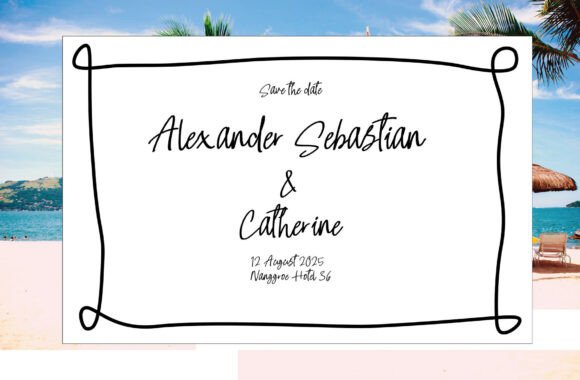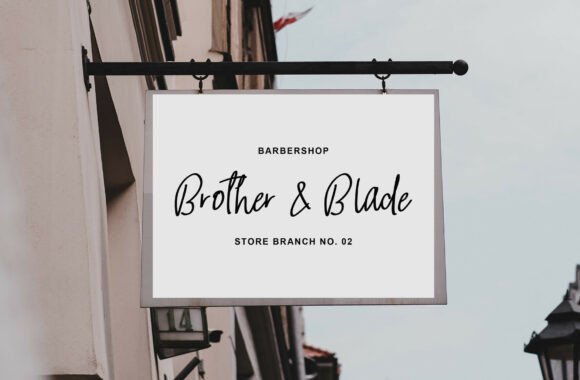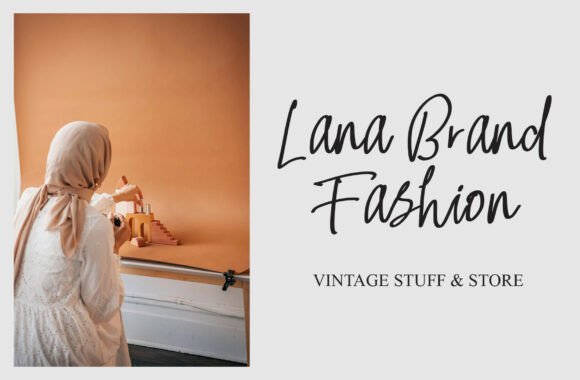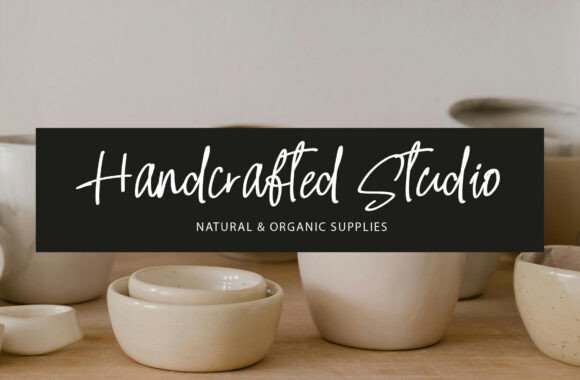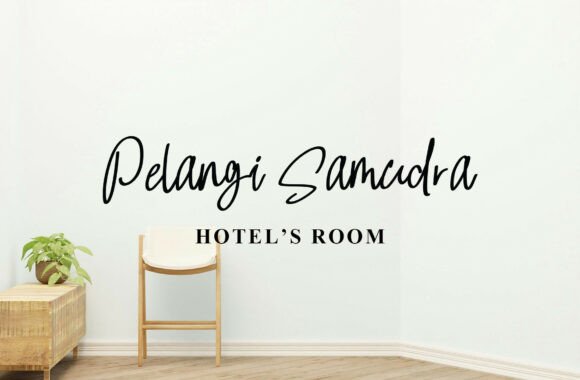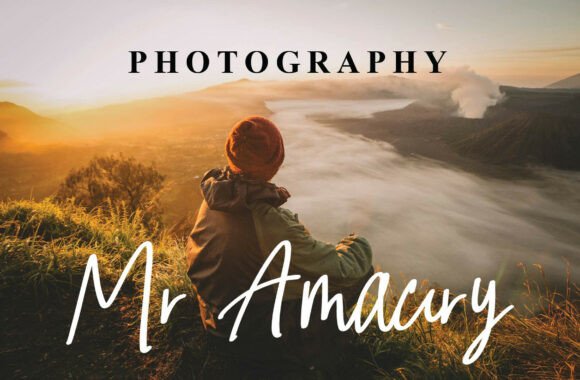
Introduction to Midnight Brush Font
Remember that magical moment when you stumbled upon the perfect font for your creative project? The one that took your design from good to great, and left you wondering how you ever managed without it? For designers, that moment is what makes all the late nights and early mornings worth it. And for those who crave a font that exudes natural elegance and personality, the Midnight Brush Font is the ultimate game-changer.
This beautifully designed handwriting typeface is a treasure trove of creative possibilities, making it an ideal choice for everything from wedding invitations to logos, branding projects, and social media posts. With its natural strokes, delicate imperfections, and subtle charm, the Midnight Brush Font effortlessly blends high-quality design with a touch of whimsy, making it a valuable resource for designers who demand the best.
Whether you’re working on a free download or a paid project, the Midnight Brush Font is a must-have design resource that will elevate your work to new heights. With its transparent background and PUA-encoded glyphs, you’ll have effortless access to all the swashes, alternate characters, and stylish extras that will make your designs truly shine.
Key Features of Midnight Brush Font
- Unique, hand-painted style with a transparent background, ideal for use in graphic design, illustrations, and digital art.
- Perfect for designers and artists looking for a distinctive, high-quality design resource to elevate their creative projects.
- Midnight Brush Font is a versatile font that can be used in a variety of contexts, from branding and advertising to editorial and publishing.
- Its unique, brush-like texture adds a touch of organic, hand-crafted charm to any design, making it a standout choice for designers seeking a creative edge.
Honest Review: Midnight Brush Font
I recently had the chance to work with the Midnight Brush Font, and I must say it’s a high-quality addition to any designer’s toolkit. As a free download, it’s an amazing resource for creatives on a budget.
- ✨ Unique aesthetic: The Midnight Brush Font has a distinct, hand-drawn feel that sets it apart from more traditional fonts.
- ✨ Versatile: It’s perfect for a wide range of creative projects, from logos and branding to editorial and design work.
- ✨ Easy to use: The font is available in a transparent background, making it a breeze to work with in your design software of choice.
While the Midnight Brush Font is a great resource, there are a few limitations to be aware of:
- ⚠️ Limited character set: The font only includes a basic set of characters, which may not be suitable for more complex design projects.
- ⚠️ Not ideal for body text: The font is best used for headlines and titles, as it can be difficult to read in larger blocks of text.
Overall, I’m impressed with the Midnight Brush Font. While it may not be perfect for every design project, it’s a valuable resource for creatives looking for a unique and high-quality font.
How to Use Midnight Brush Font
Design Tips
For the most out of Midnight Brush Font, use it on a transparent background to create a high-quality design resource. Experiment with different font sizes, colors, and combinations to create a unique look for your creative project.
Midnight Brush Font is suitable for various design projects, including invitations, posters, and social media graphics. Its elegant and creative style makes it an ideal choice for weddings, fashion, and lifestyle designs.